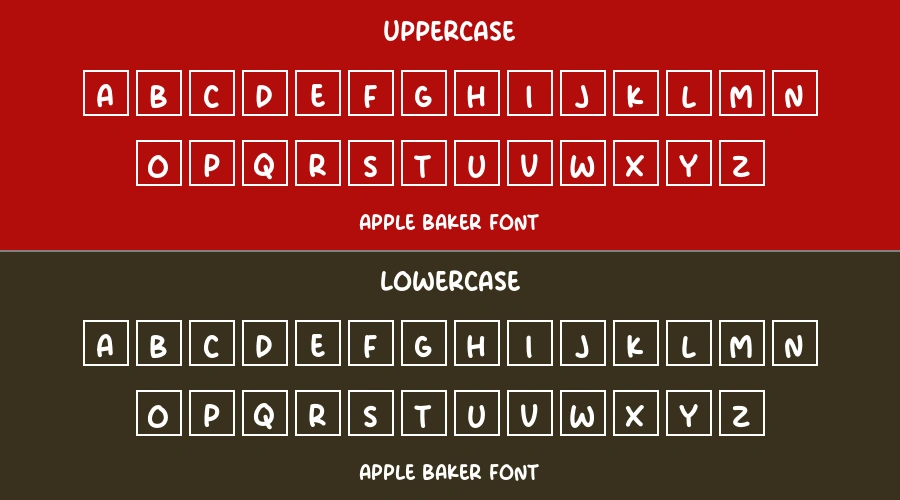
About Apple Baker Font
Apple Baker Font represents a sophisticated approach to type design, balancing hand-drawn quality with textual warmth. Perfect for advertising campaigns, this font family showcases impressive consistency and technical excellence throughout its character set. Designers appreciate its versatility and reliability.
Designers will appreciate nuanced touches including humanist proportions and arrow sets, adding sophistication to any project. These features become apparent in data tables, where output consistency matters most. The careful treatment of corner treatment and scientific authority ensures optimal performance.